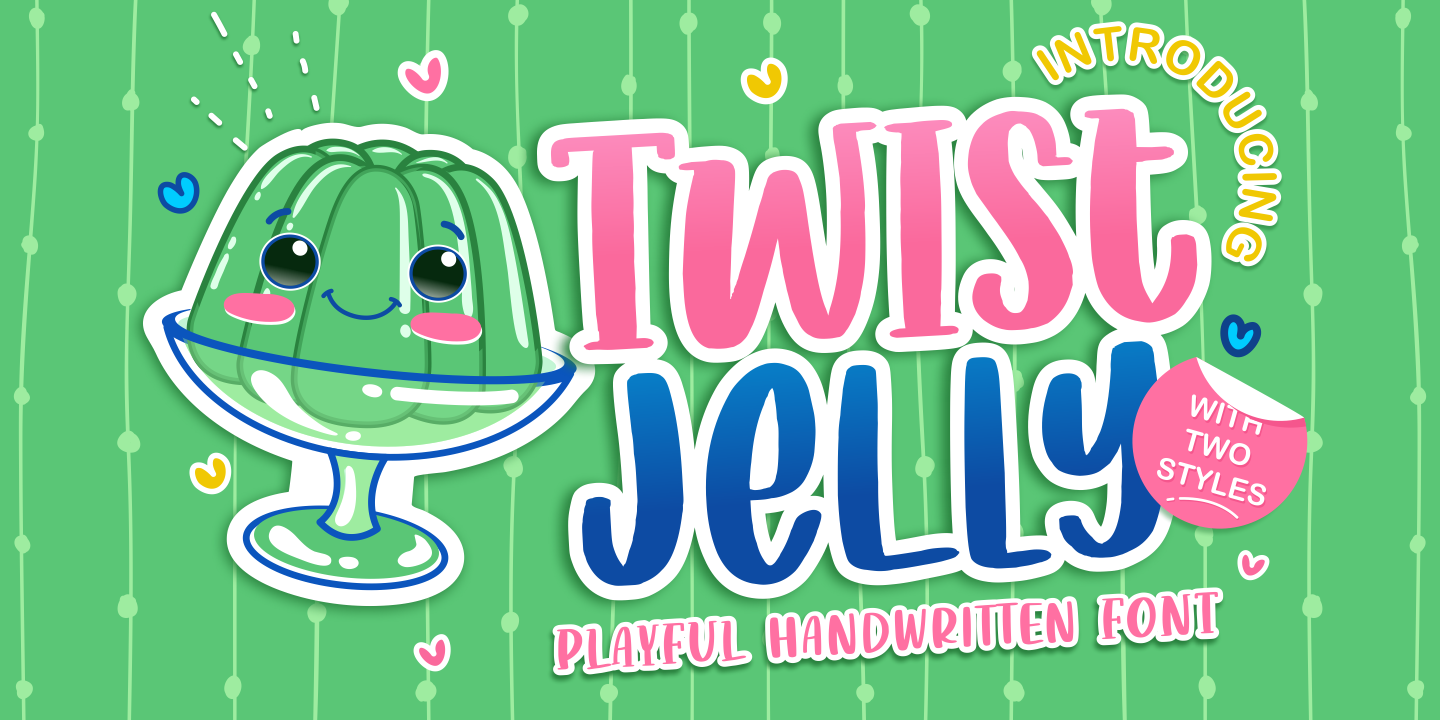
The Twist Jelly Font is perfect for candy store branding, children's party invitations, playful toy packaging, ice cream parlor signage, colorful dessert menus, fun birthday decorations, sweet treat advertisements, kids' entertainment venues, bubblegum product labels, and whimsical confectionery designs.
What makes the Twist Jelly Font exciting is its delightful ability to capture the bouncy joy and sugary sweetness of childhood treats through playfully twisted letterforms that seem to wiggle and dance with infectious energy. This enchanting typeface features elastic curves, jelly-like proportions, and candy-inspired character variations that create an atmosphere of pure fun, sweetness, and carefree celebration. Each letter appears to be made from the most delicious gummy candy, radiating the irresistible charm and colorful energy that makes children's eyes light up with wonder and excitement.
The Twist Jelly Font family includes regular, bold, stretched, and bouncy versions, along with candy symbols, sweet ornaments, and playful decorative elements that enhance its confectionery appeal across various fun and child-friendly design applications.
Whether you're creating candy brand identities or designing playful celebration materials, Twist Jelly Font Free Download delivers maximum sweetness and authentic confectionery charm. Its lovingly crafted bouncy letterforms ensure excellent readability while maintaining that essential jelly-like quality that delights children and brings out the inner child in adults. The font's playful features include contextual alternates, bouncy ligatures, and sweet variations that automatically create authentic candy shop aesthetics. Confectionery designers and children's brand creators consistently choose this font for projects requiring genuine sweetness and playful appeal. The Twist Jelly Font transforms ordinary text into delicious expressions of pure joy, making it an essential sweet treat in any designer's playful typography candy collection.